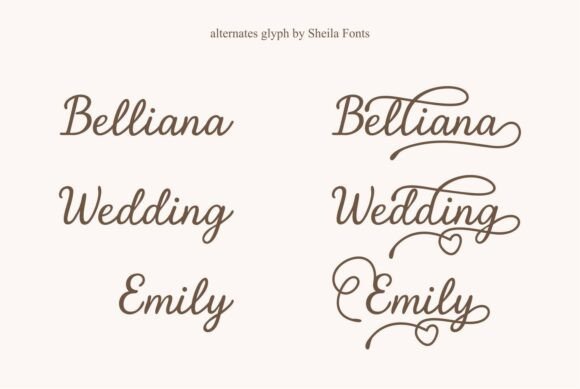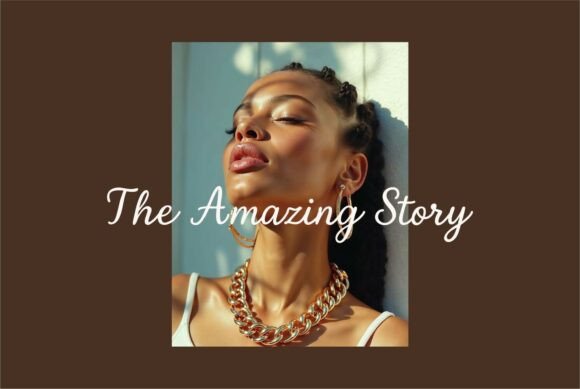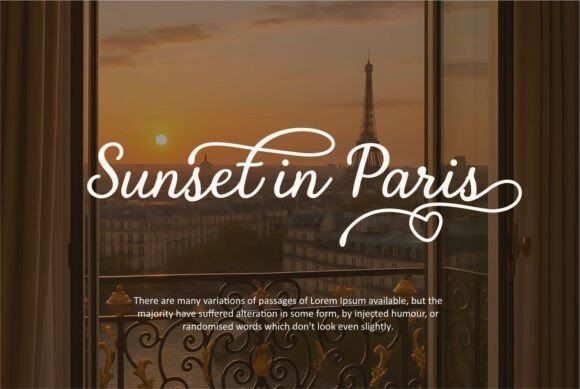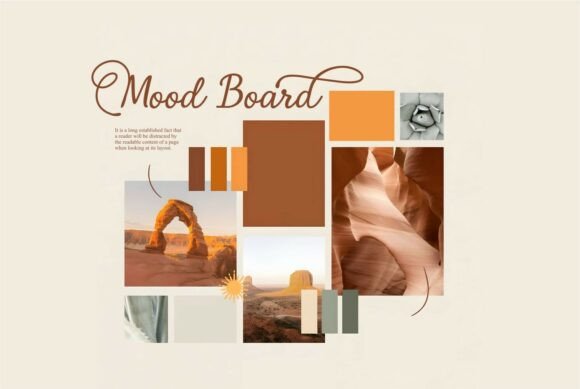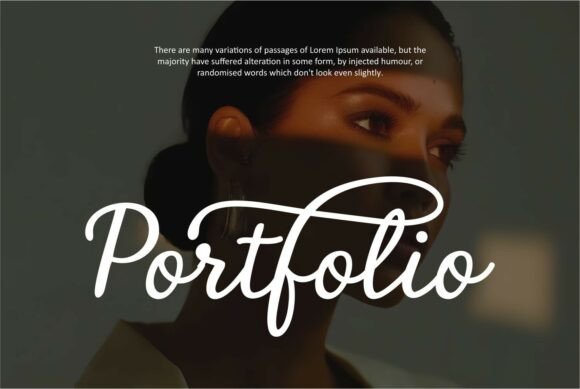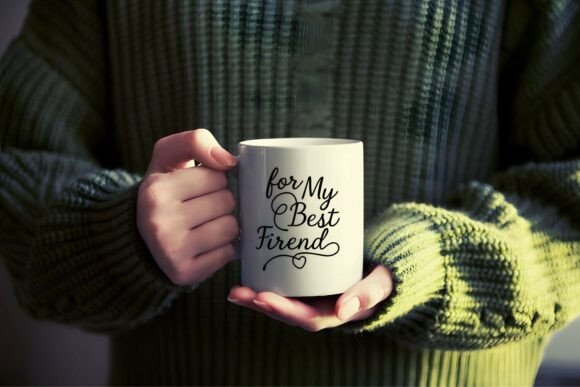
Introducing Family Font: The Perfect Blend of Elegance and Personal Warmth
In the world of typography, few fonts manage to capture the essence of elegance, femininity, and personal warmth as beautifully as Family Font. This modern handwritten script font is a masterpiece of design, combining soft monoline strokes with romantic decorative swashes to create a truly unique and captivating visual experience. Whether you’re a designer, crafter, or simply someone who appreciates the art of beautiful writing, Family Font is sure to leave a lasting impression.
The Perfect Choice for Wedding Invitations and Stationery
One of the standout features of Family Font is its suitability for wedding invitations, signature logos, and personal stationery. The font’s elegant and refined appearance makes it an ideal choice for couples looking to add a touch of sophistication and romance to their special day. The soft monoline strokes and romantic swashes evoke a sense of love and intimacy, creating a truly unforgettable experience for the happy couple and their guests.
But Family Font is not just limited to wedding invitations. Its versatility and charm make it an excellent choice for a wide range of design projects, including boutique logos, fashion branding, and social media designs. Whether you’re looking to create a stylish and modern brand identity or simply want to add a personal touch to your online presence, Family Font is the perfect choice.
A Font that Flows with Elegance and Charm
One of the key characteristics that sets Family Font apart from other script fonts is its flowing and elegant appearance. Each letter is carefully crafted to create a sense of movement and fluidity, giving the font a dynamic and lively feel. The soft monoline strokes add a touch of sophistication and refinement, while the romantic swashes provide a playful and whimsical touch.
But what really makes Family Font special is its ability to evoke emotions and create a sense of connection with the viewer. The font’s warm and inviting appearance makes it perfect for designs that require a personal touch, such as wedding invitations, baby shower announcements, and other special occasion designs.
Designing with Family Font: Tips and Inspiration
So, how can you make the most of Family Font in your designs? Here are a few tips and inspiration to get you started:
- Use Family Font as a headline font to add a touch of elegance and sophistication to your design.
- Pair Family Font with a clean and simple sans-serif font to create a striking contrast and add visual interest to your design.
- Experiment with different swash combinations to add a unique and personalized touch to your design.
- Use Family Font to create beautiful and intricate illustrations, such as wedding monograms and custom logos.
Why Designers and Crafters Love Family Font
Family Font has quickly become a favorite among designers and crafters, and it’s easy to see why. Here are just a few reasons why this font has captured the hearts of so many creatives:
- Its unique and elegant appearance makes it perfect for a wide range of design projects.
- The font’s soft monoline strokes and romantic swashes add a touch of warmth and personality to any design.
- Family Font is incredibly versatile and can be used for both digital and print designs.
- The font’s flowing and dynamic appearance makes it perfect for creating beautiful and intricate illustrations.
| Font Name | Family Font |
| Author | Whymore |
In conclusion, Family Font is a truly exceptional script font that beautifully combines elegance, femininity, and personal warmth. Its soft monoline strokes, romantic swashes, and flowing appearance make it perfect for a wide range of design projects, from wedding invitations and stationery to boutique logos and social media designs. Whether you’re a designer, crafter, or simply someone who appreciates the art of beautiful writing, Family Font is sure to inspire and delight. So why not give it a try and see the magic for yourself?